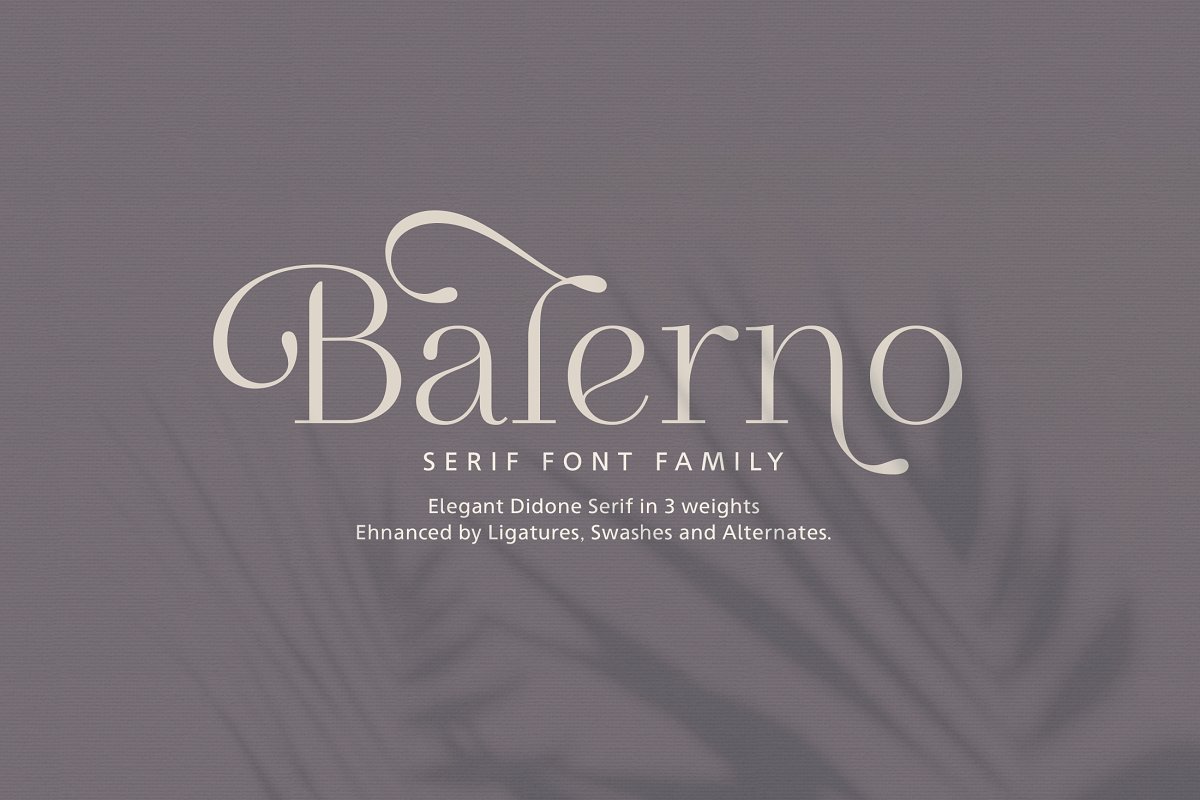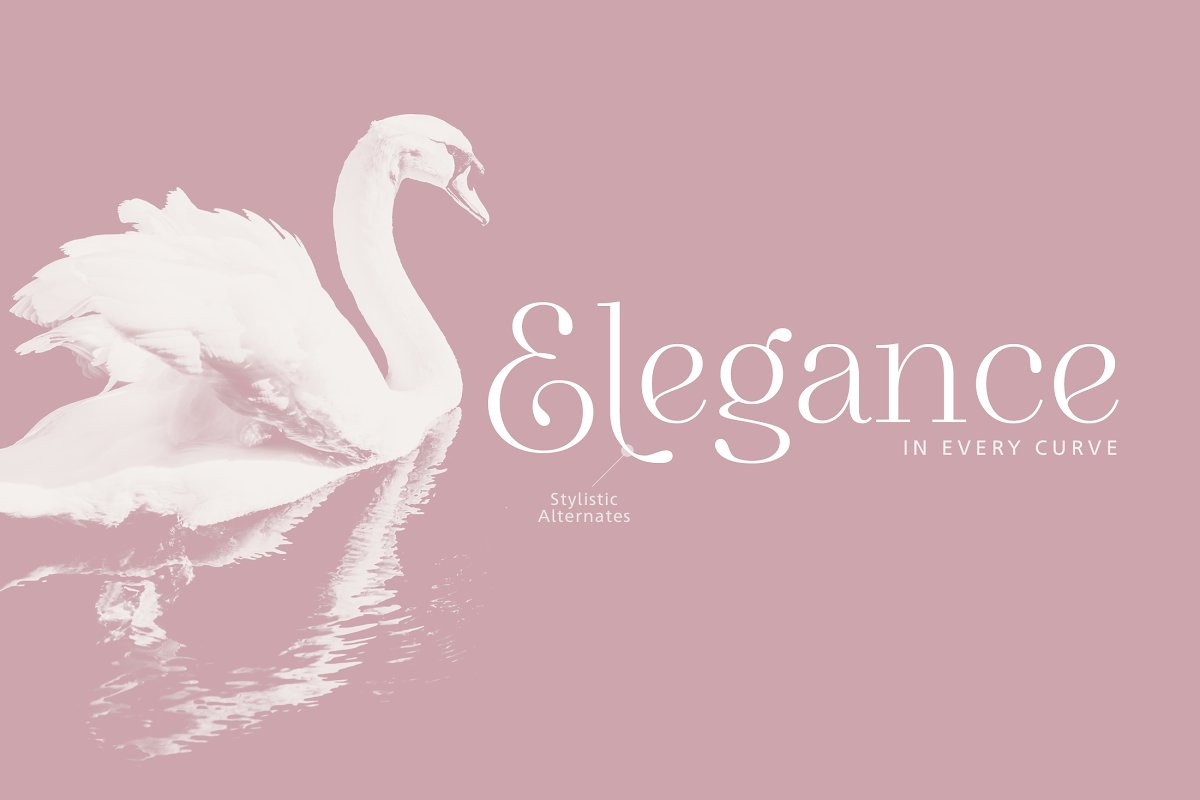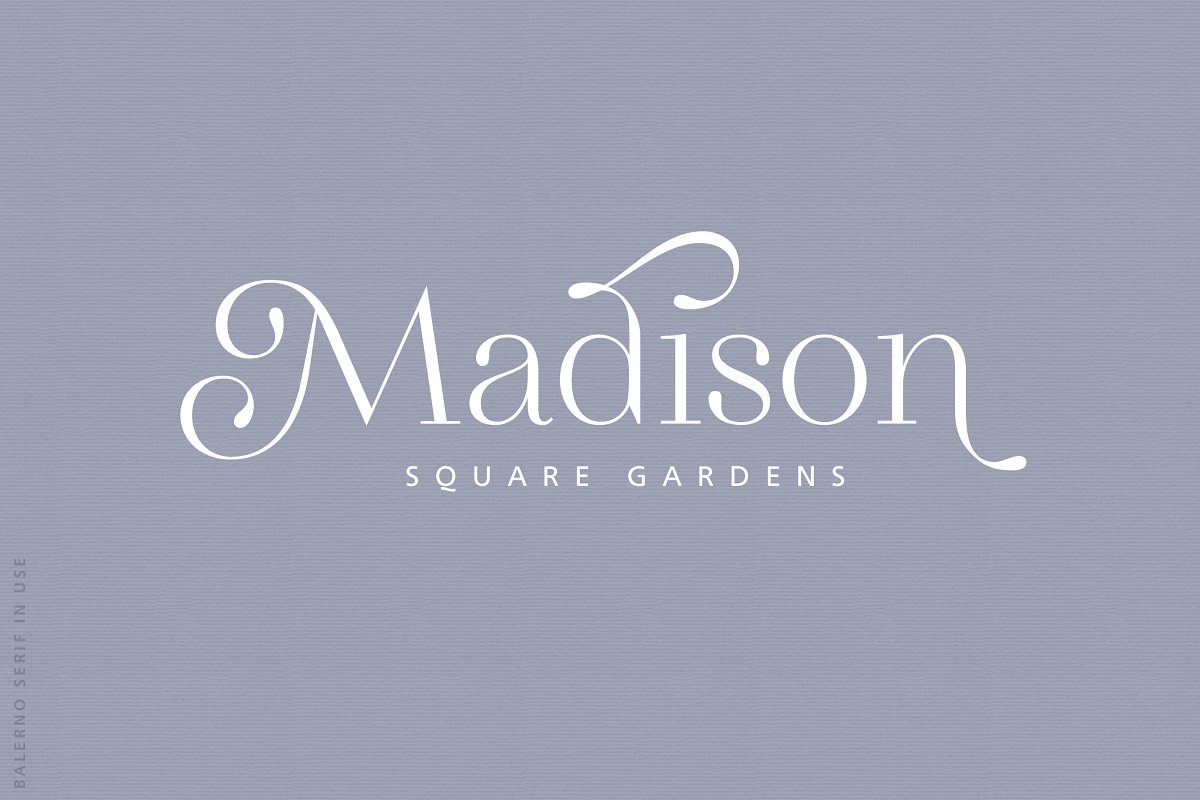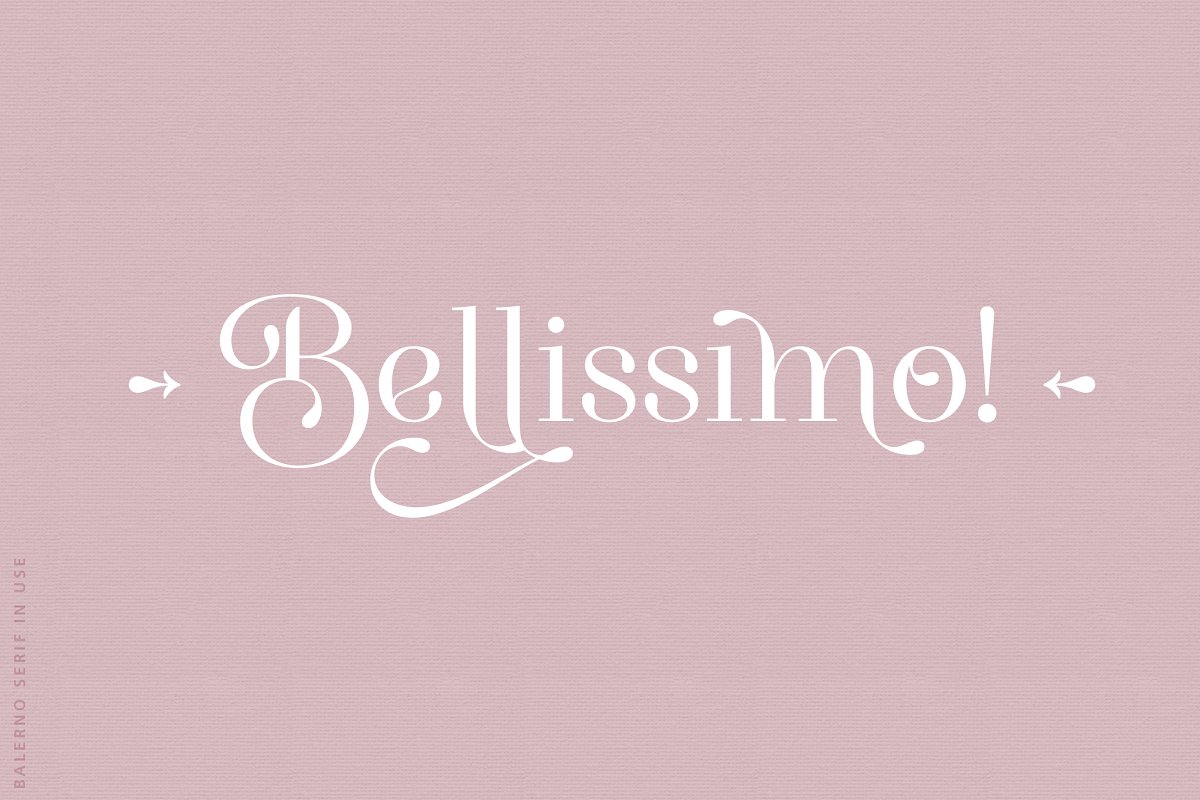
About the Balerno Serif Family Font
Balerno Serif is a modern multilingual elegant Didone serif enhanced by ligatures, alternates and swashes, Balerno is a very versatile font family – with it’s classic forms and modern features it will cover a wide range of design projects starting from greeting cards to magazines, wedding invitations, websites etc, The amount of alternates is tremendous, from simple stylistic alternates to swashes, ligatures and their alternates
Languages supported: English, German, French, Italian, Spanish, Swedish, Portuguese, Irish, Norwegian, Luxembourgish, Basque, Breton, Corsican, Faroese, Galician, Icelandic,